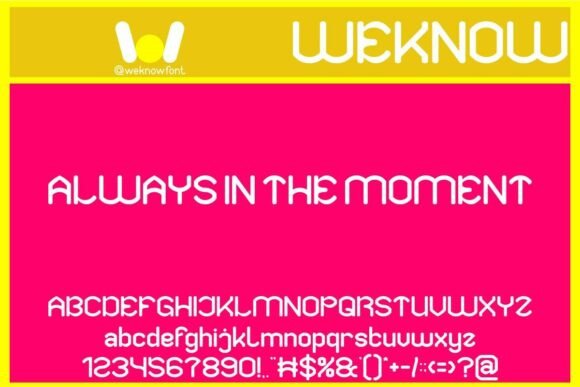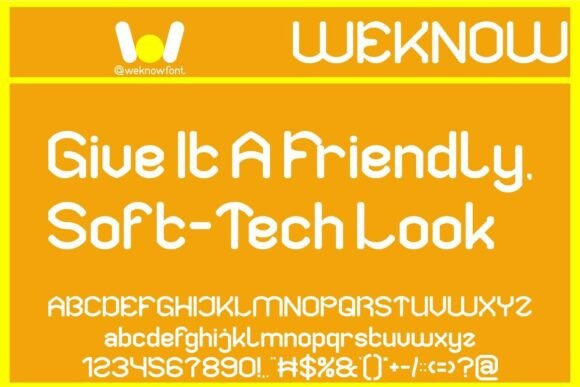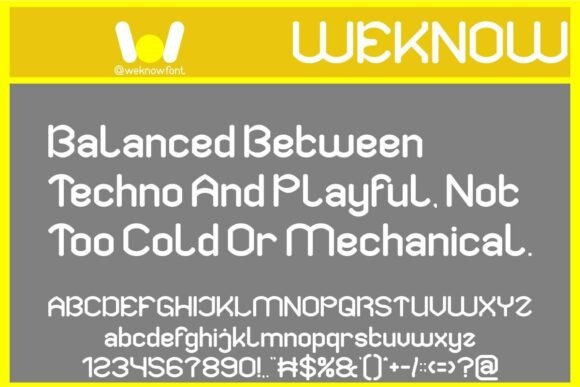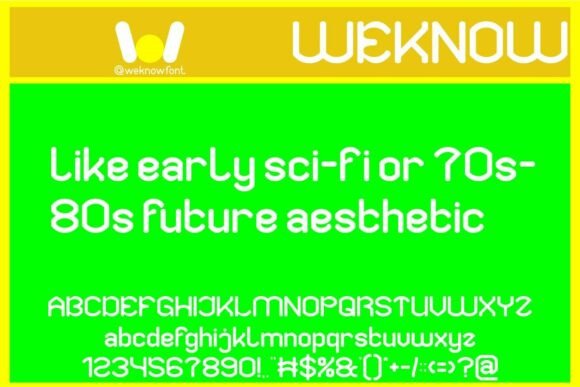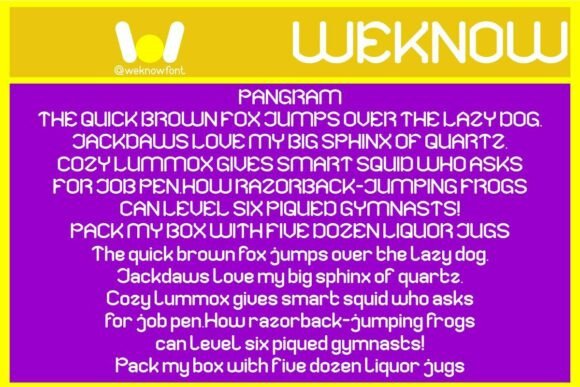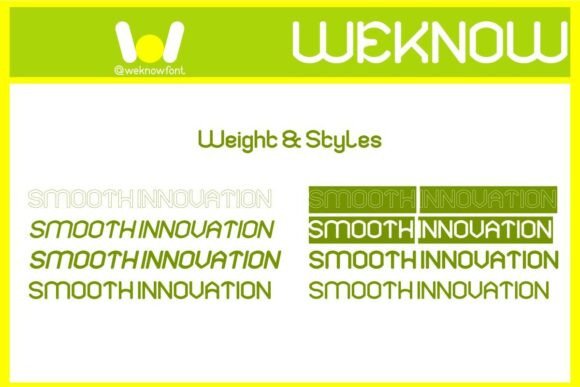
Introduction to Smooth Innovation Font
Enter the Smooth Innovation Font, a game-changing display font that brings a touch of futuristic elegance to your designs. With its unique techno twist, this font is perfect for logos, logotypes, and headlines that need to stand out. Whether you’re working on a corporate identity, a gaming environment, or a musical theme, the Smooth Innovation Font is a valuable design resource that can breathe new life into your projects.
Key Features of Smooth Innovation Font
- High-quality design for creative projects: Smooth Innovation Font is designed to elevate your visual content with its sleek and modern style.
- Resolution: Optimized for high-resolution displays, Smooth Innovation Font ensures crisp and clear typography in your designs.
- Unique characteristics: Its smooth curves and modern aesthetic make it an excellent choice for creative projects requiring a touch of sophistication.
- Perfect for digital design: Smooth Innovation Font is designed to work well in digital environments, including web design, mobile apps, and more.
Honest Review: Smooth Innovation Font
I recently had the chance to work with the Smooth Innovation Font, and I must say, it’s been a game-changer for my creative project. ✨ The font’s sleek and modern design made it perfect for my client’s tech startup branding.
Here are some of the features that stood out to me:
- High quality: The font is incredibly clear and crisp, even at small sizes.
- ⚠️ Limited character set: I wish the font had a more extensive character set to accommodate non-English languages.
- ⚠️ Not ideal for bold or italic text: The font’s design doesn’t lend itself well to bold or italic text, which can make it tricky to use in certain situations.
Smooth Innovation Font
The Smooth Innovation Font is commonly used in creative projects such as:
1. Branding and logo design.